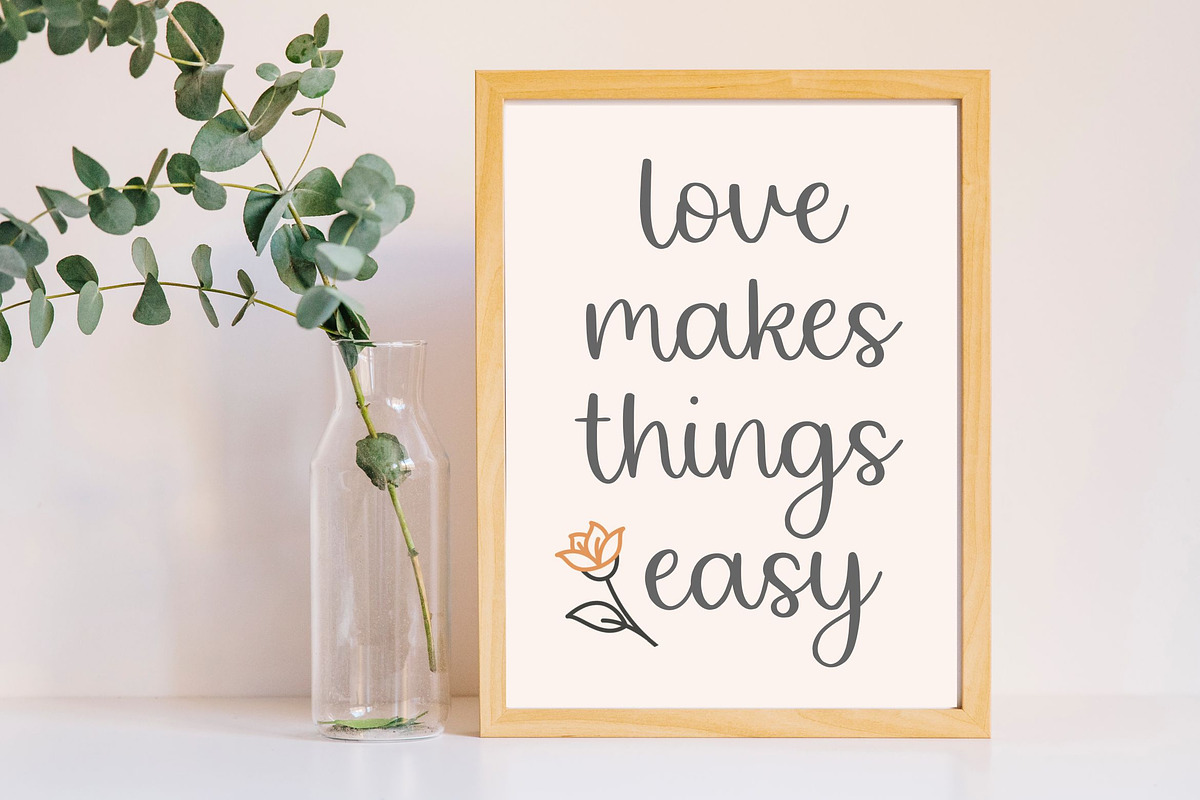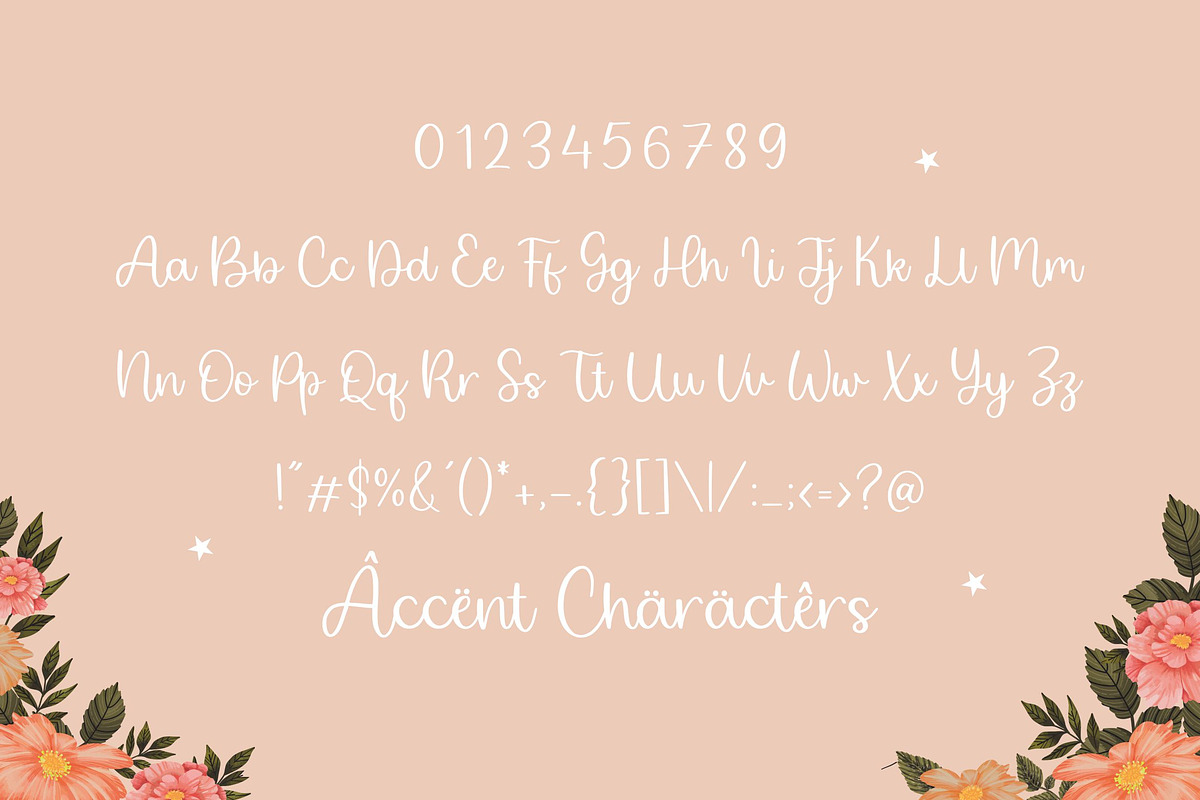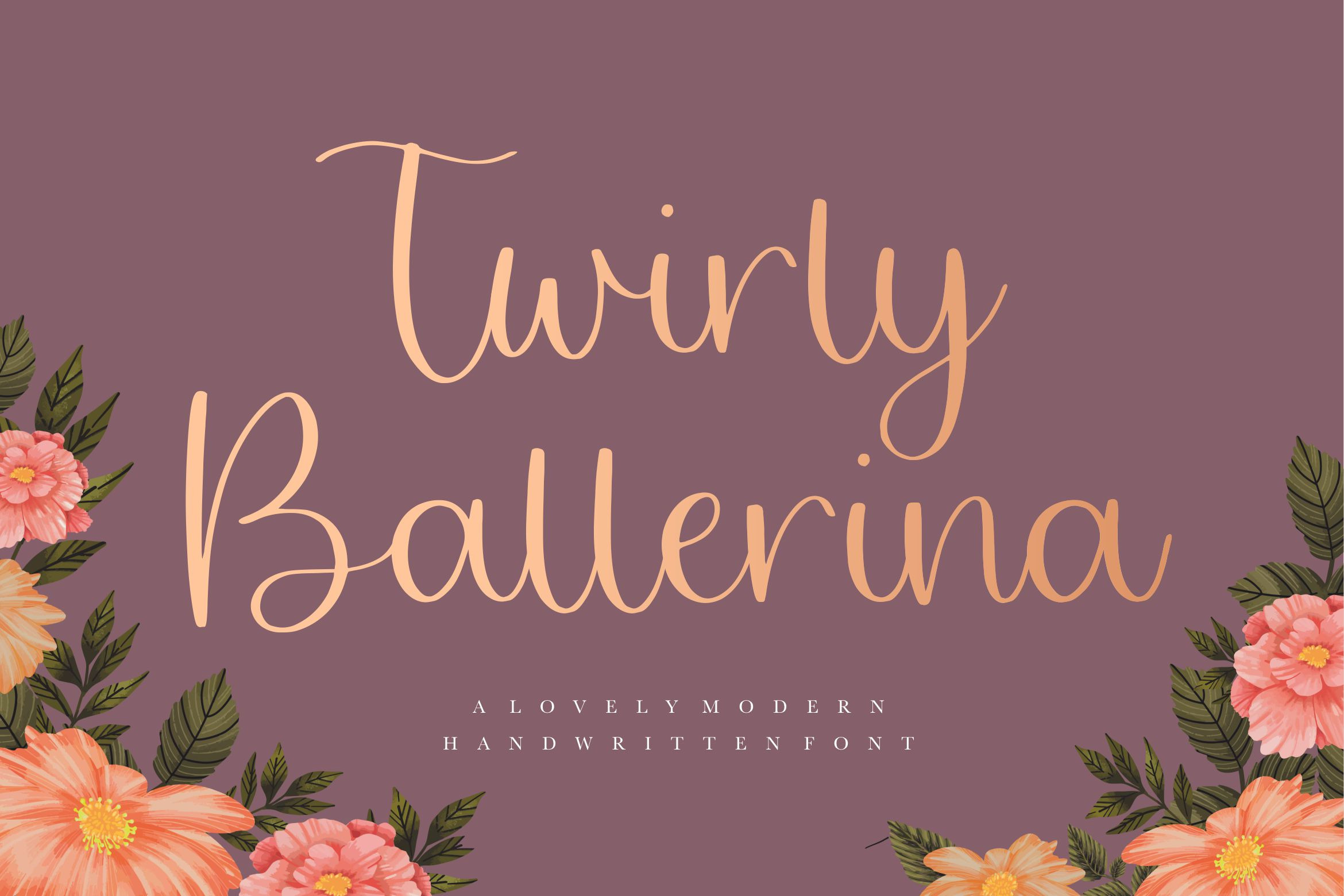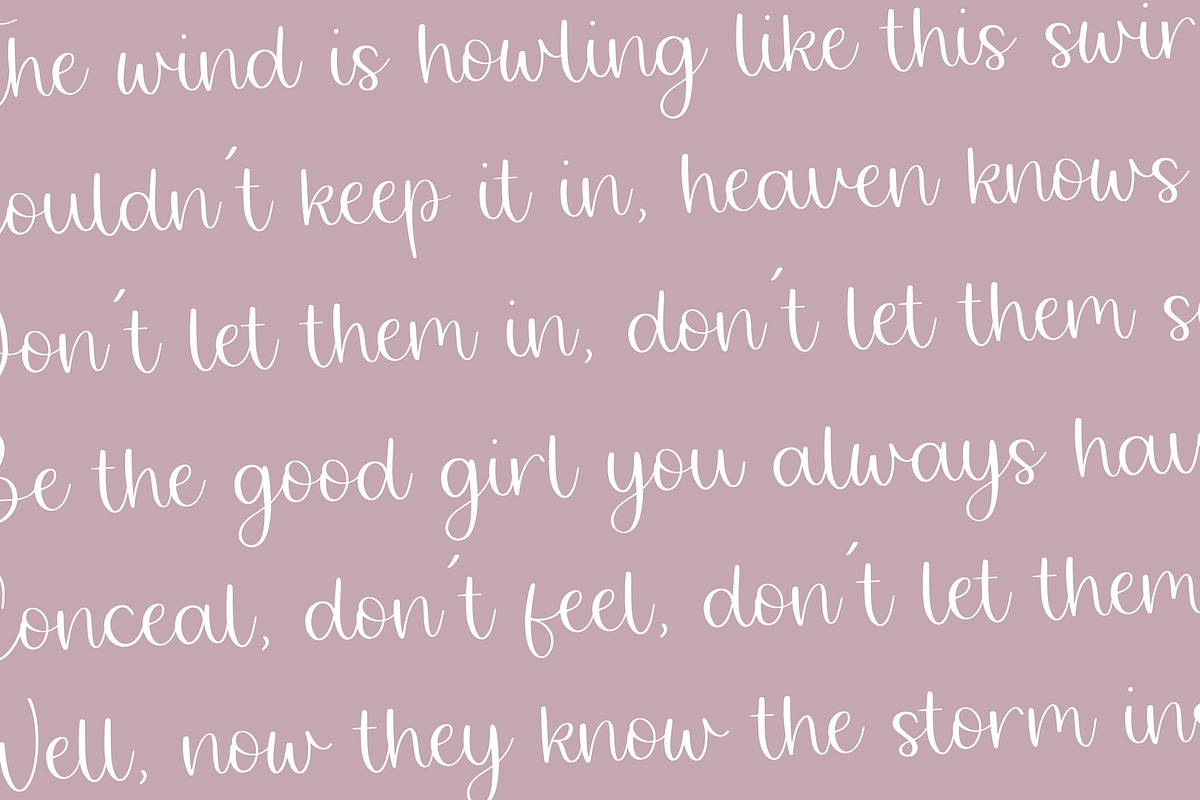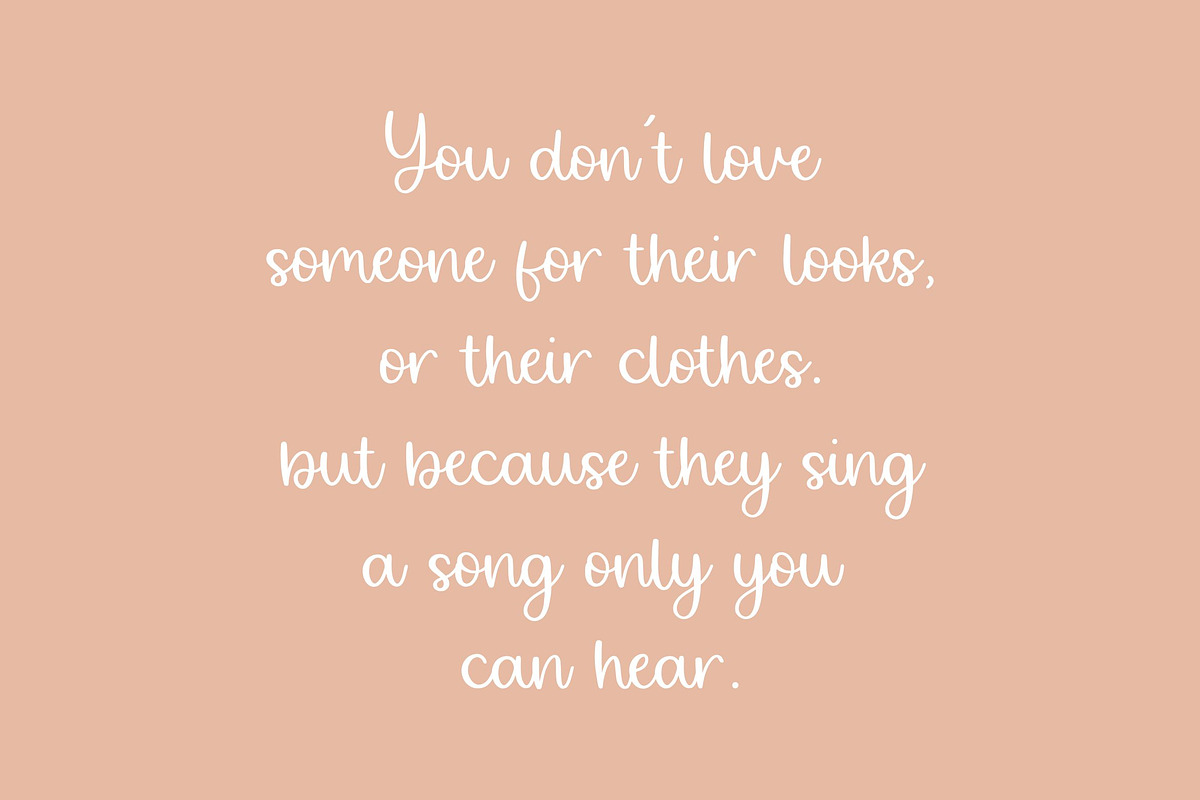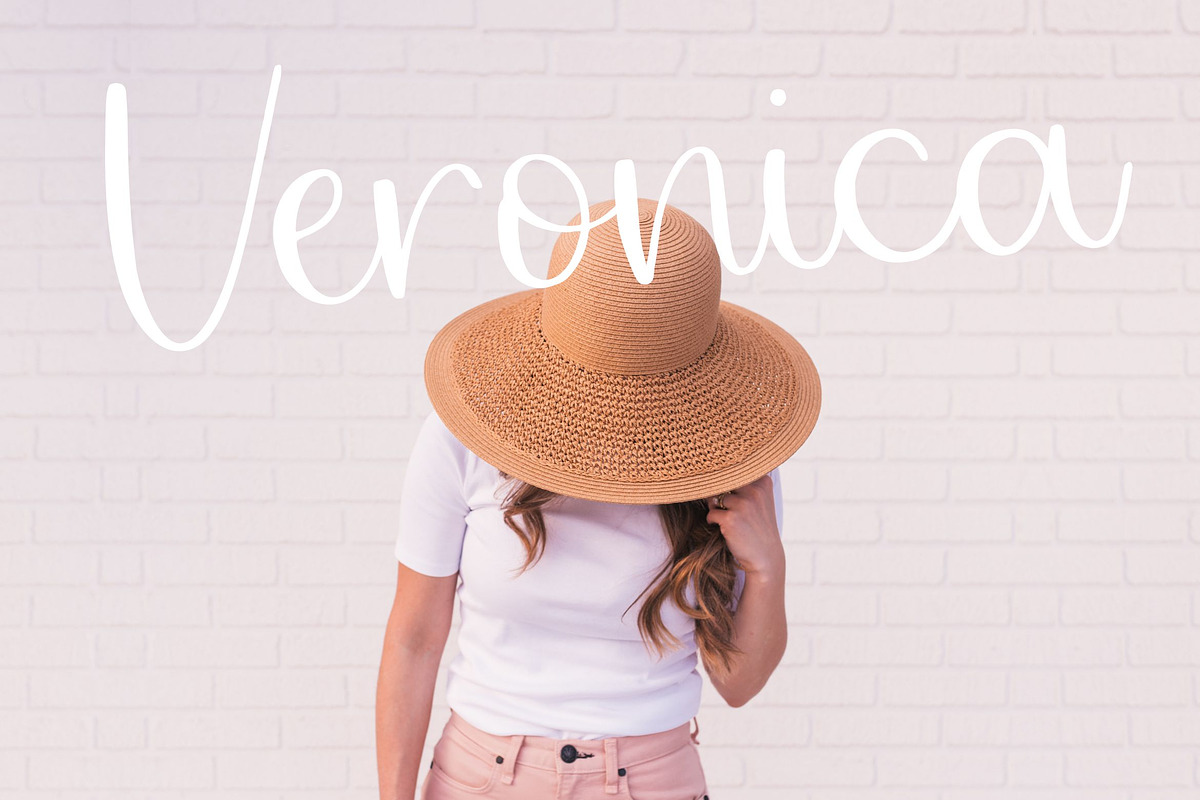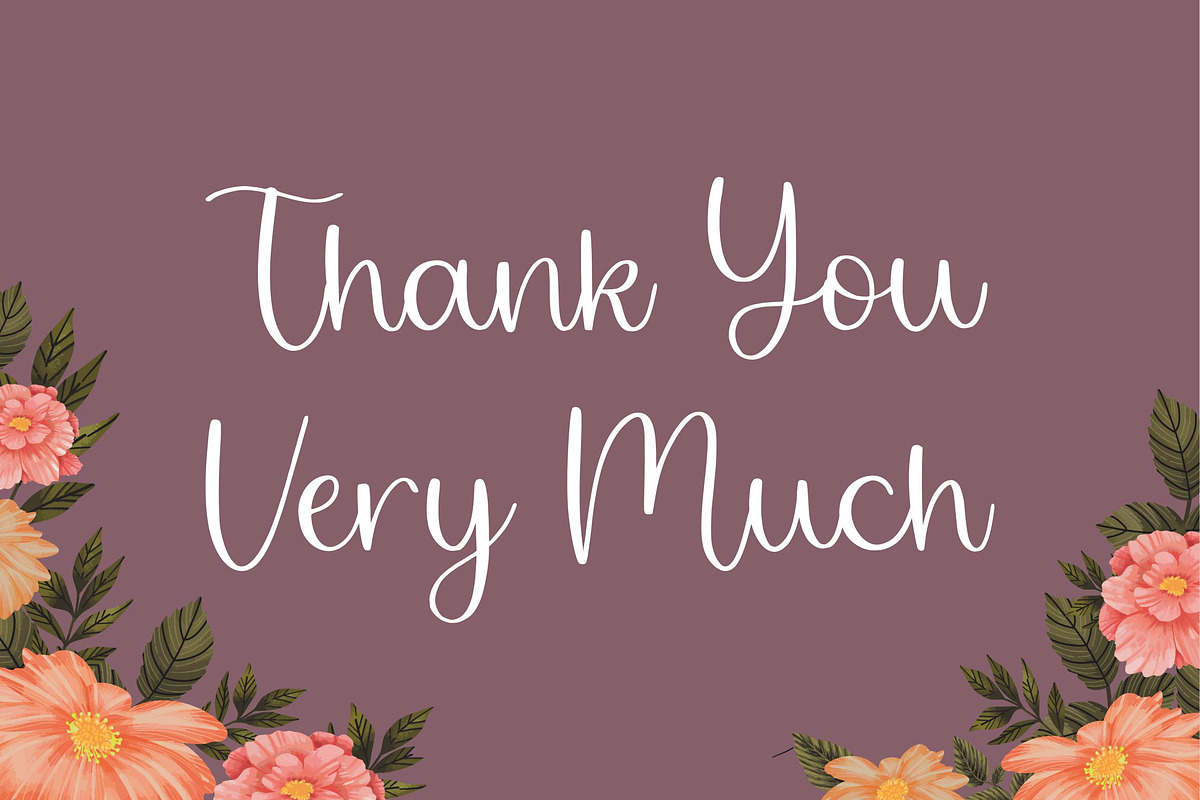
Twirly Ballerina Handwritten Font
Twirly Ballerina is a magical script font carefully created with a touch of elegance. This is a beautiful combination of timeless elegance and authentic calligraphy. It features an incredibly classic style, while still keeping a friendly feel. Fall in love with its authentic feel and use it to create gorgeous wedding invitations, beautiful stationary art, eye-catching social media posts, and cute greeting cards.
- also multilingual support